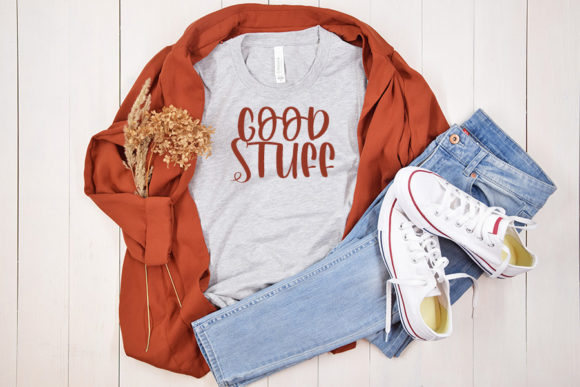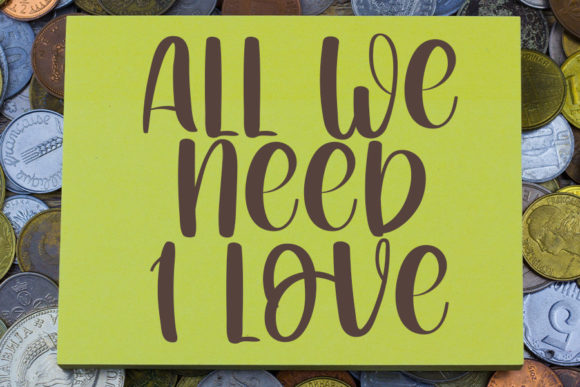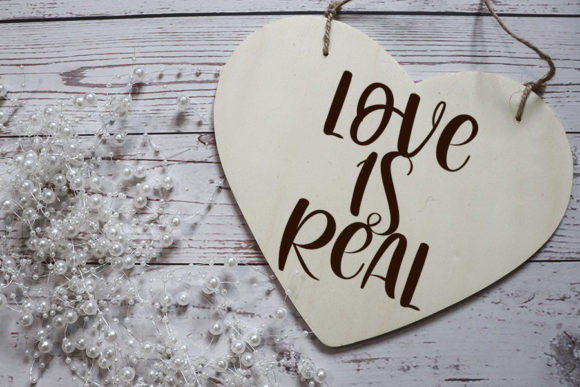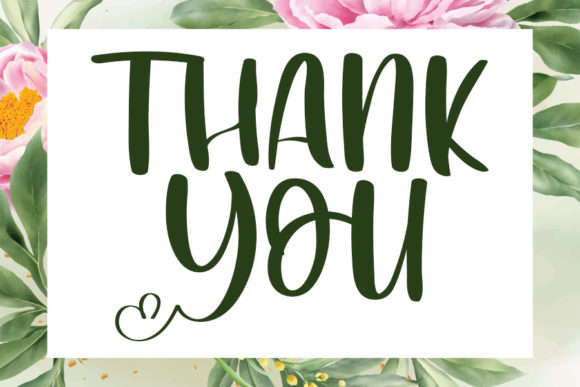
Introduction to Poopeye Font
Poopeye is a lovely handwritten font featuring charming, playful characters that seem to dance along the baseline.
Add this font to your most creative ideas, and notice how it makes them stand out .